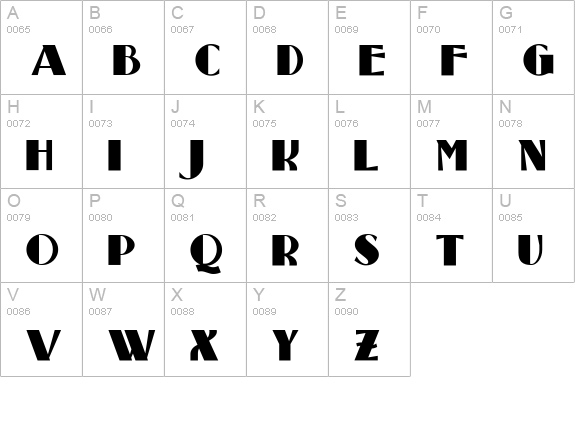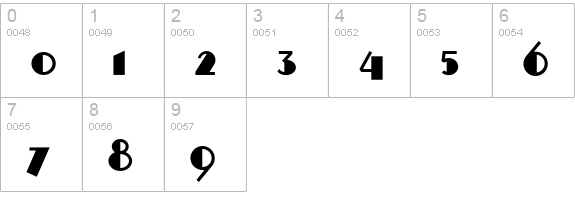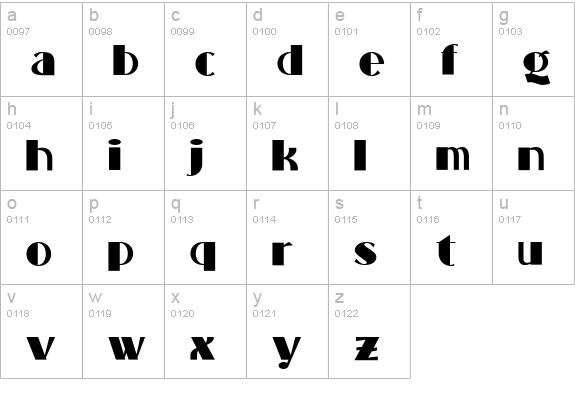
Standing Room Only NF Font Details
Standing Room Only NF is a bold and eye-catching font that demands attention with its strong, uppercase letterforms. This versatile typeface exudes a sense of modernity and sophistication, making it perfect for a wide range of design projects. Whether you're creating striking headlines, stylish logos, or impactful posters, Standing Room Only NF is sure to make a statement. What's even better is that this high-quality font is available for free download at FontsMarket.com. So, designers and creatives can easily access this powerful typeface and incorporate it into their work without any cost. Don't miss out on the opportunity to enhance your designs with the dynamic energy of Standing Room Only NF - get your free download today!